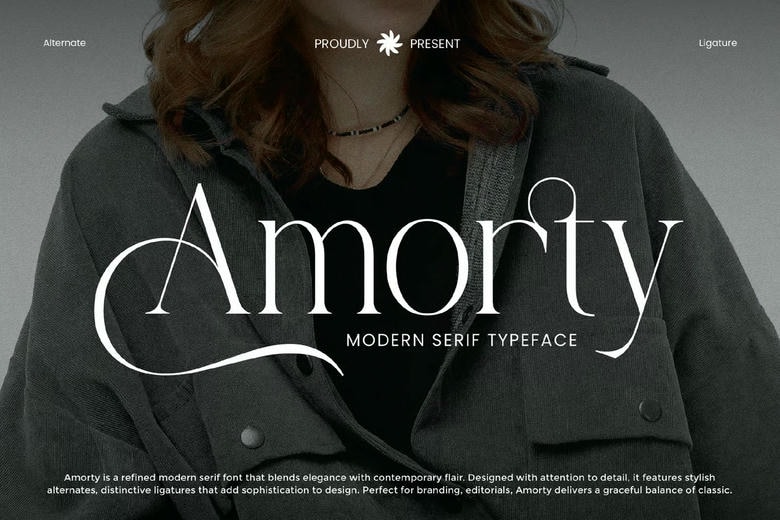
Amorty Font
Amorty is a modern alluring serif typeface with entrenched timelessness and modern elegance. With elevated contrast strokes and unique character shapes, Amorty is exactly what the designers aim to have when they want to fine-tune their brand in pursuit of a luxurious, well-groomed look.
No matter the context be it as part of branding, editorial design, packaging and in logo design, web site headers, or social media image design, Amorty brings a powerful graphic impression that get people to take notice. The sharpness of its serifs and its smooth curves bring out an air of confidence, professionalism as well as a feeling of a high-end component.
Amorty provides incredible versatility and an amazing range of creativity with both upper and lowercase characters, comprehensive mixing of punctuations, support of multiple languages as well as full repertoire of stylistic alternates.
Amorty Modern Serif Font